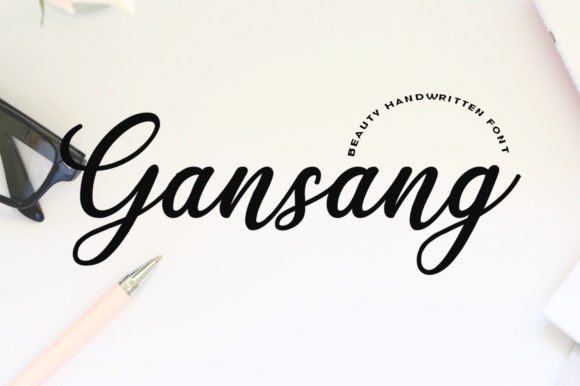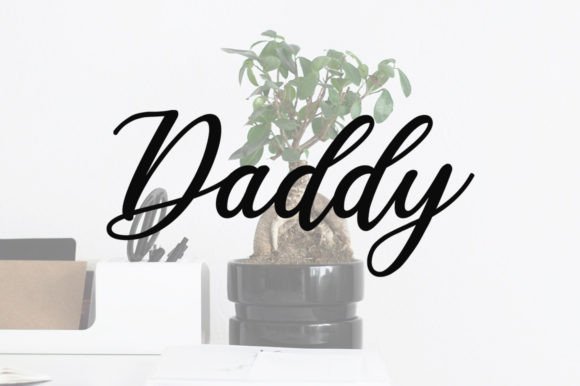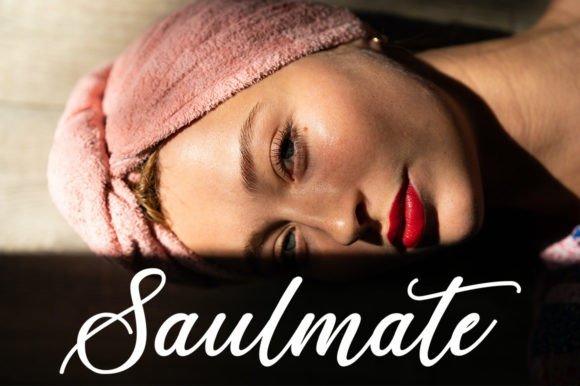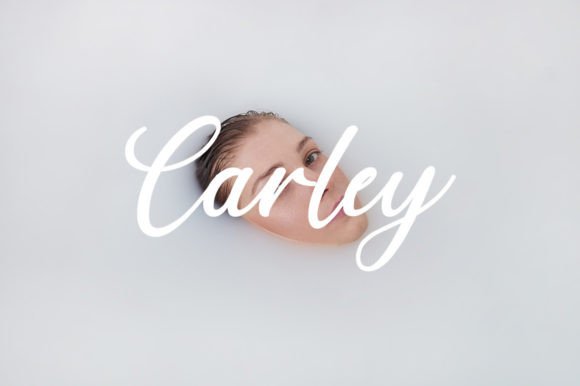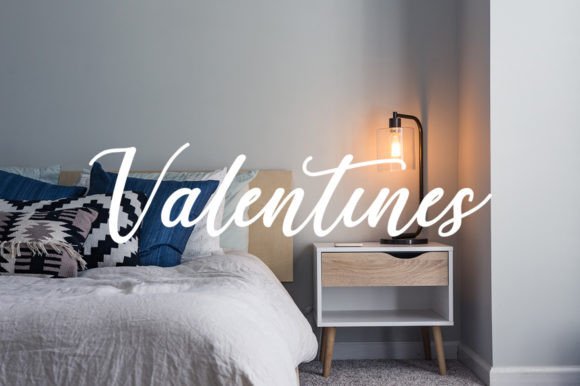
Gansang
About Gansang
Gansang is a lovely and sweet handwritten script font. This gentle font will look gorgeous on a variety of design ideas. It will add a joyful and romantic touch to each of your projects!